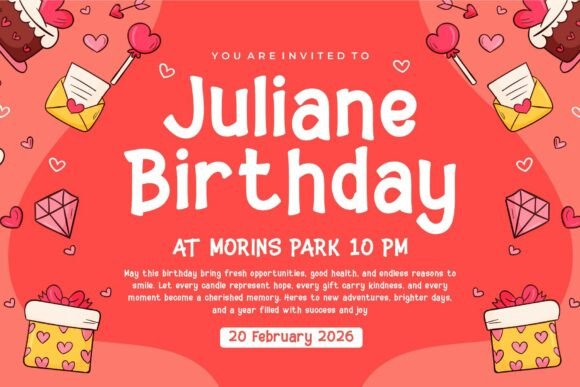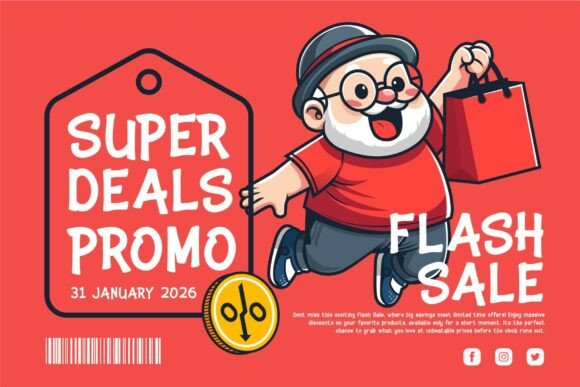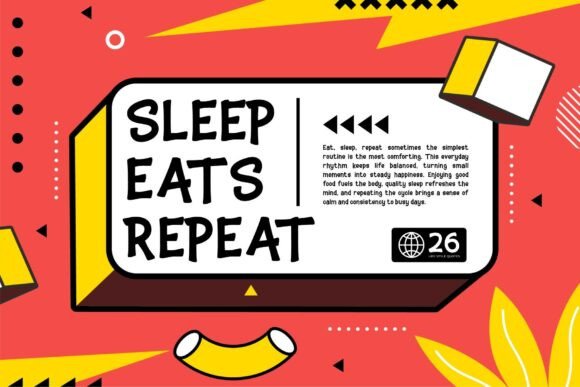
Introduction to Nofrya Font
As a designer, have you ever stared at a blank canvas, waiting for the perfect font to bring your creative project to life? You know the feeling – the thrill of discovering a high-quality design resource that elevates your entire aesthetic. For those moments, we’re excited to introduce you to the Nofrya Font, a modern and playful display font that’s sure to make a statement.
With its beautiful character and smooth design, the Nofrya Font is perfect for a wide range of applications, from invitation card designs to business cards and movie titles. Its stylish ligatures make it a versatile partner for any project, allowing you to create a cohesive look that exudes sophistication and style. Whether you’re working on a free download or a paid design, the Nofrya Font is a valuable resource that’s sure to take your designs to the next level.
Key Features of Nofrya Font
- High-quality design resource for creative projects, offering a unique and stylish look.
- Designed with a modern and sleek aesthetic, perfect for use in branding, typography, and creative projects.
Honest Review: Nofrya Font
As a designer, I’m always on the lookout for high-quality design resources to elevate my creative projects. The Nofrya Font has been a recent addition to my arsenal, and I’m excited to share my honest review.
What works well: ✨ The Nofrya Font is incredibly versatile, making it suitable for a wide range of creative projects. Its modern design and clean lines make it perfect for digital applications, while its elegant feel lends itself well to print materials. The font also comes with a transparent background, which is a big plus for designers who value customization.
What doesn’t: ⚠️ While the Nofrya Font is available for free download, it’s worth noting that it’s a bit limited in terms of font styles. There are only a few weights and styles to choose from, which might not be ideal for designers who require a more extensive font library.
Overall, I’m impressed with the Nofrya Font. Its high quality and modern design make it a valuable addition to any design resource library. While it may have some limitations, its free download and transparent background make it a great option for designers working on a budget.
- Modern design
Tips for Getting the Most Out of Nofrya Font
To get the most out of the Nofrya Font, use it in combination with other high-quality design resources, and ensure you’re using it in a suitable context. Also, consider using the font in a way that showcases its unique characteristics.
The Nofrya Font is commonly used in graphic design, branding, and digital art projects. It’s also suitable for use in presentations, reports, and other documents where a unique and creative font is required.